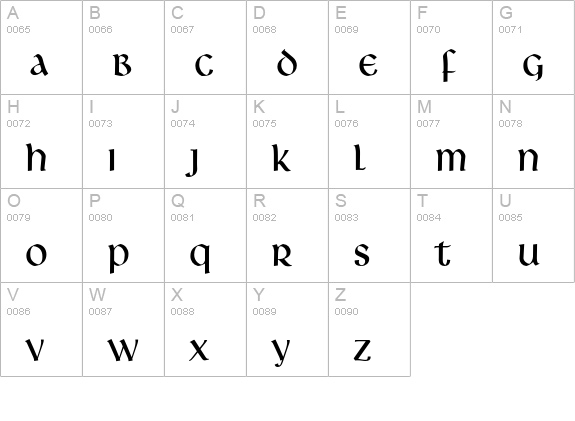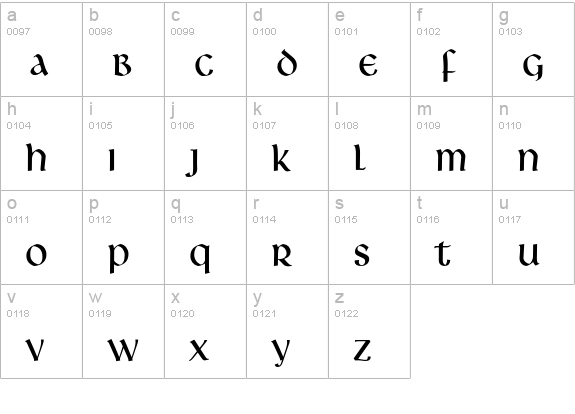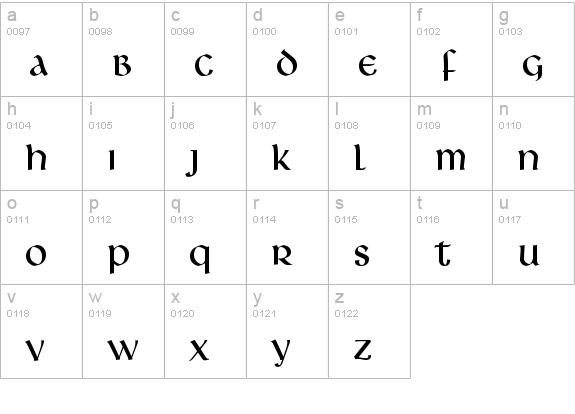
Libra font is a stunning and elegant typeface that exudes sophistication and charm. With its graceful curves and balanced proportions, Libra is perfect for adding a touch of refinement to any design project. Whether you're working on a logo, branding materials, invitations, or any other creative endeavor, Libra font will elevate your work to the next level. What's even better is that Libra font is available for free download at FontsMarket.com. This means you can easily access this beautiful font without any cost, making it a valuable addition to your font library. Don't miss out on the opportunity to enhance your designs with the timeless beauty of Libra font – download it now and start creating stunning visuals today!